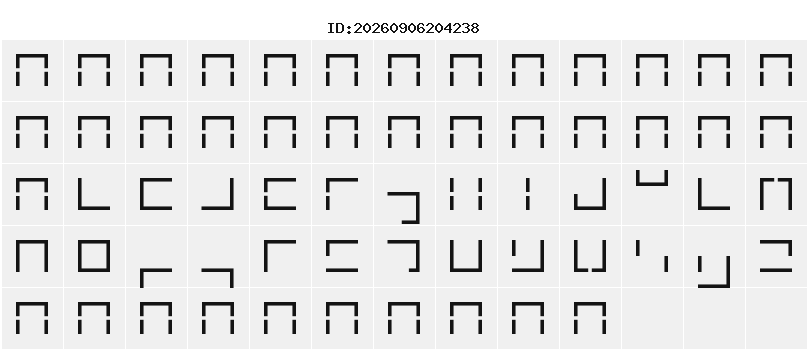
u Pure Preview
• Font Name: u Pure
• Font ID: u Pure
• Full Font Name: u Pure
• Character Count: 27
About u Pure.ttf
u Pure.ttf is a modern, elegant sans-serif font designed for ultimate readability and visual harmony. Perfect for branding, headlines, web design, and print materials.